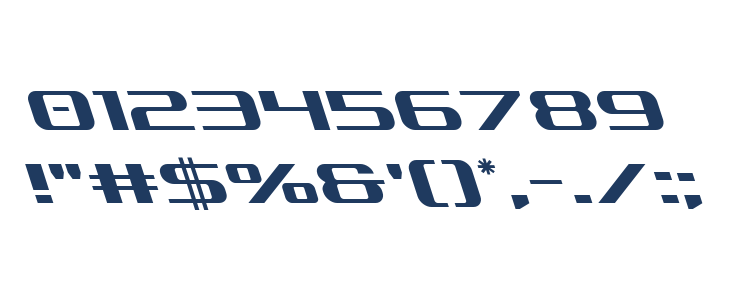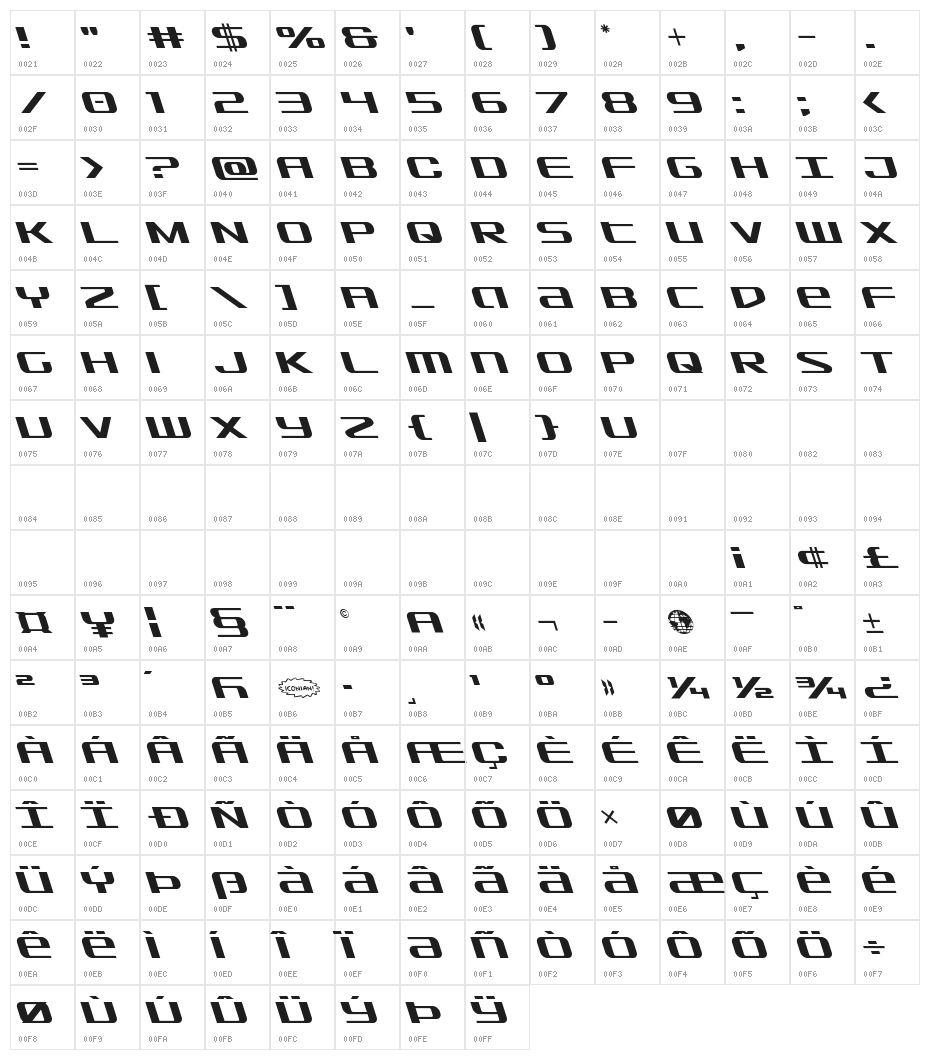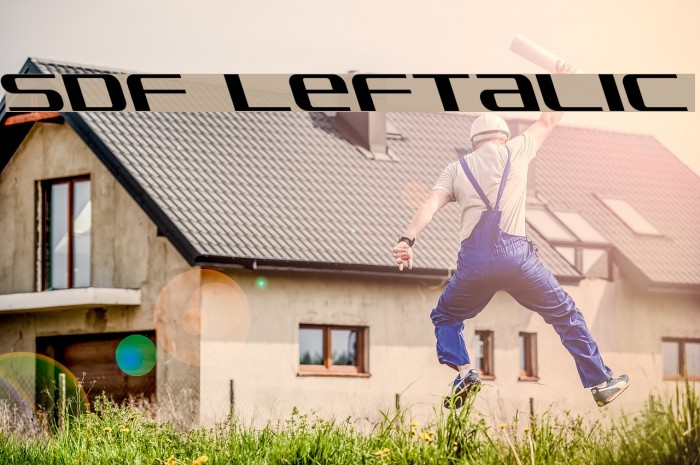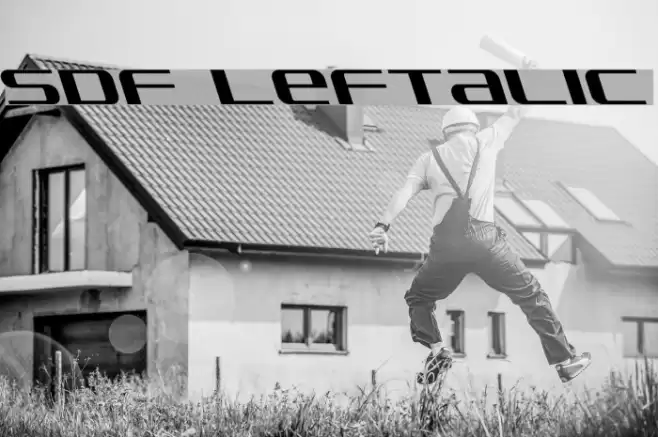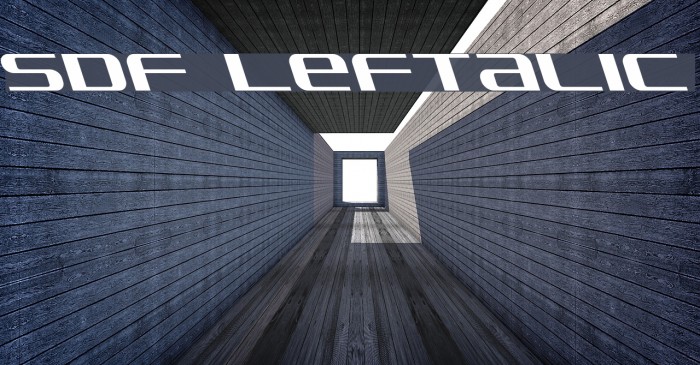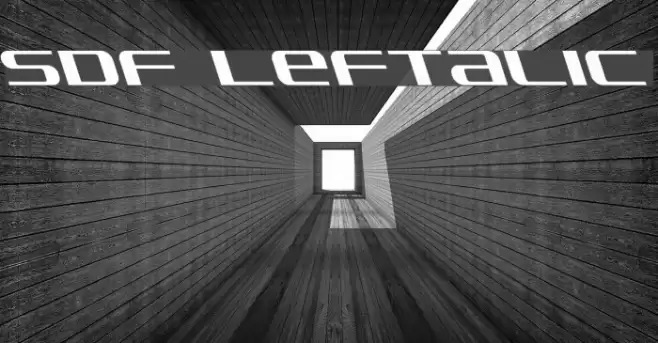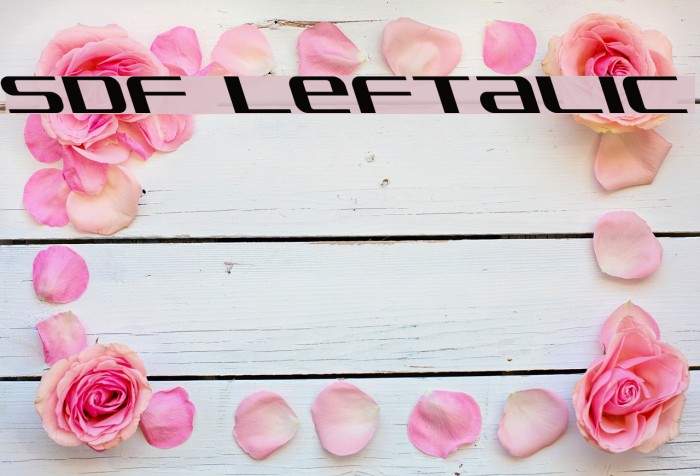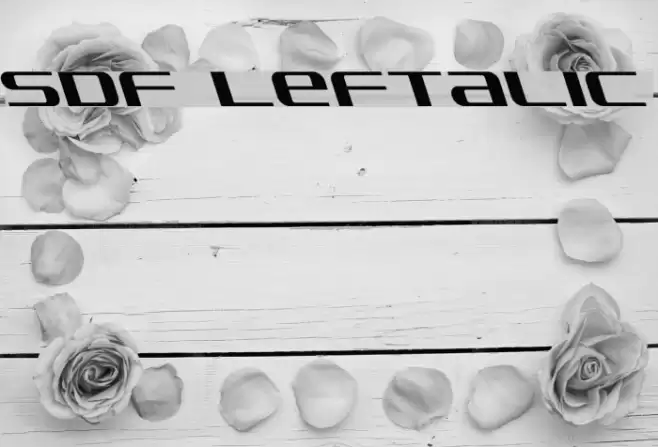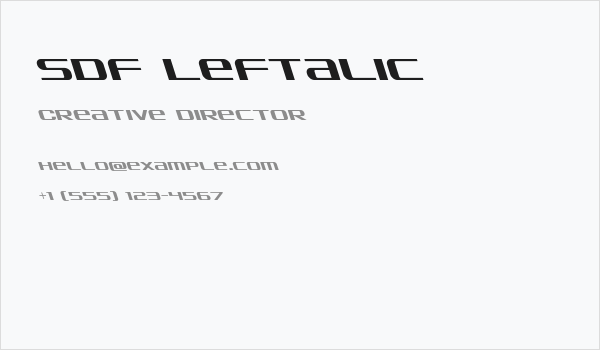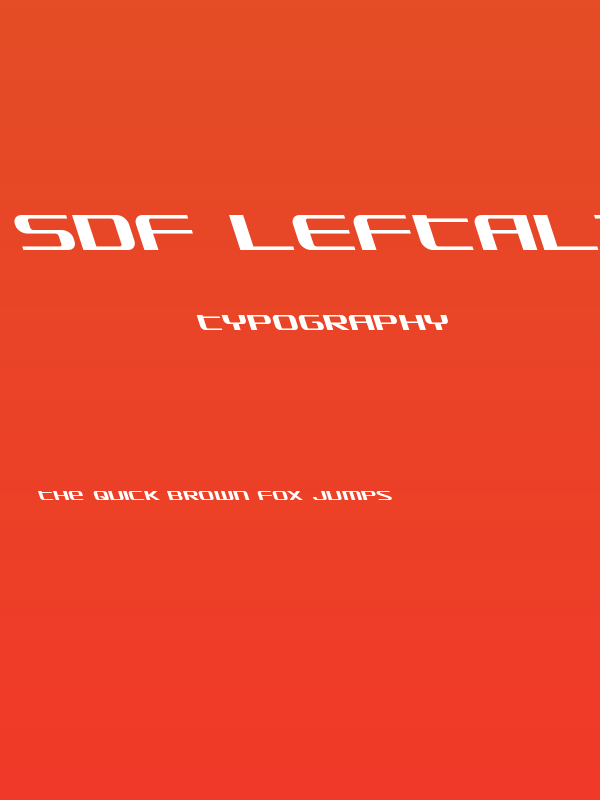
SDF Leftalic Font
SDF Leftalic Description
This font features a bold and dynamic style with a futuristic and angular design. The characters are slightly italicized, giving them a sense of motion and speed. The strokes are consistent in thickness, providing a uniform appearance across all characters. The font includes both uppercase and lowercase letters, numbers, and a variety of special characters. Its geometric shapes and sharp edges make it stand out, ideal for projects that require a modern and tech-savvy look.
| Proposed Projects | Ideal for technology branding, sci-fi themed projects, video game titles, and modern advertising. |